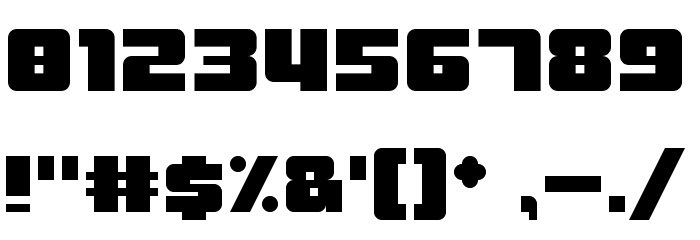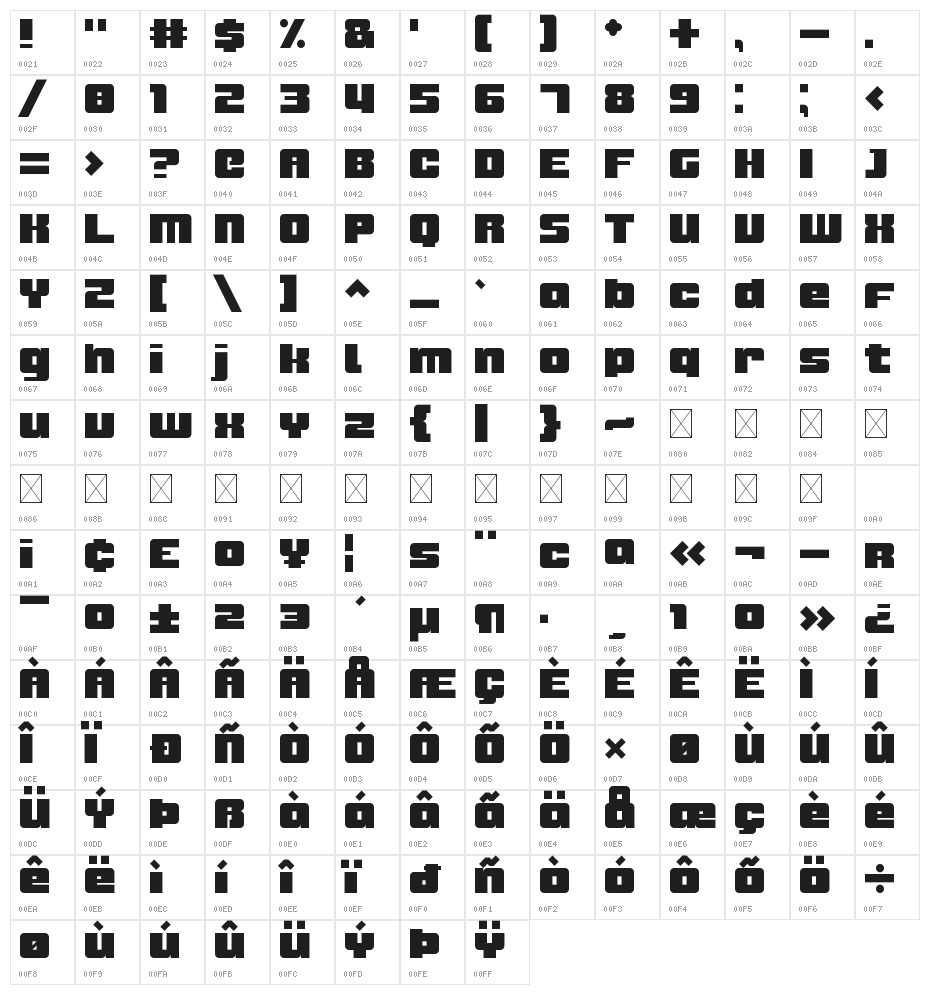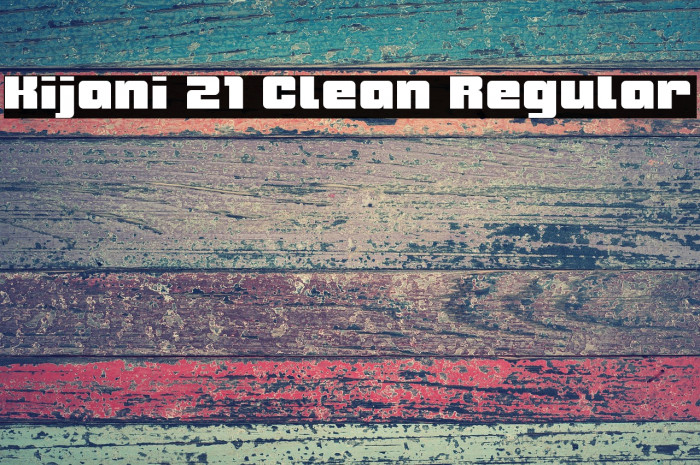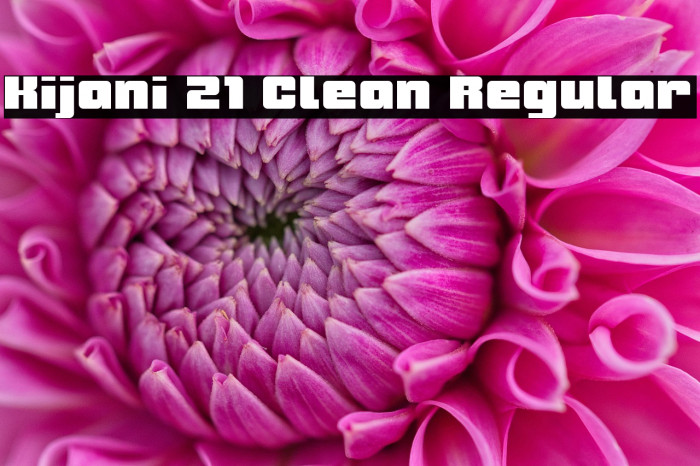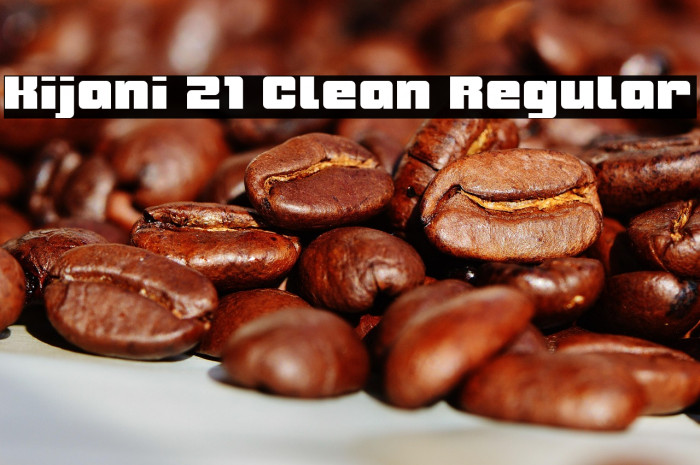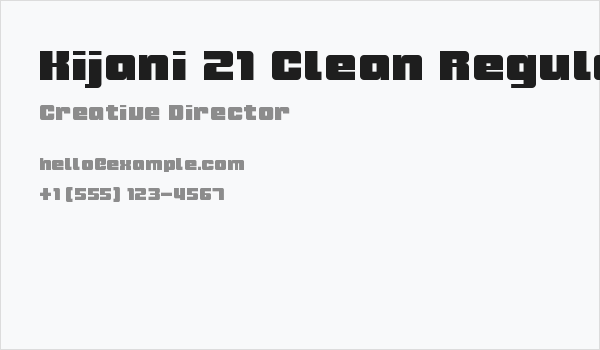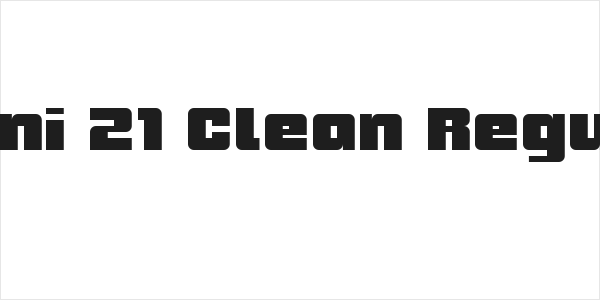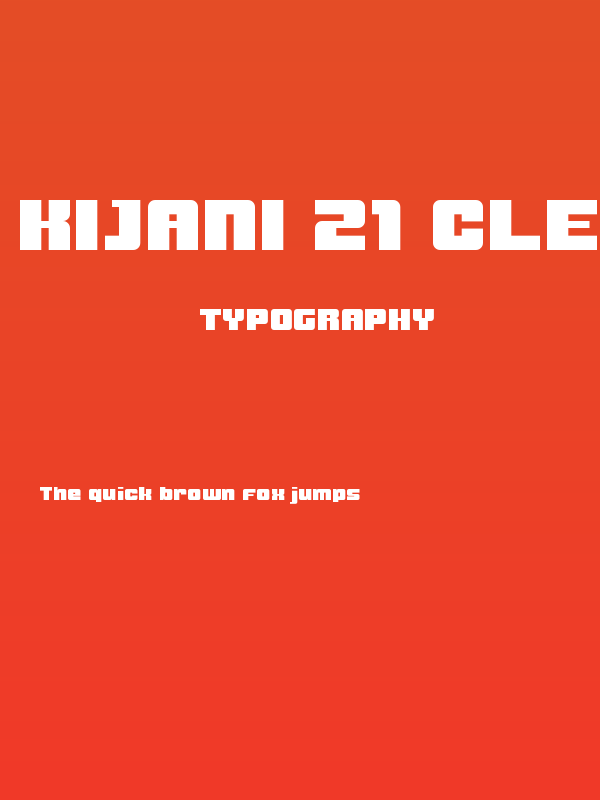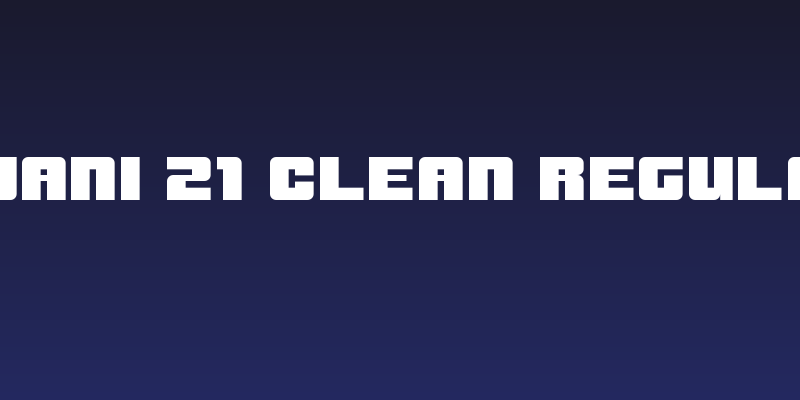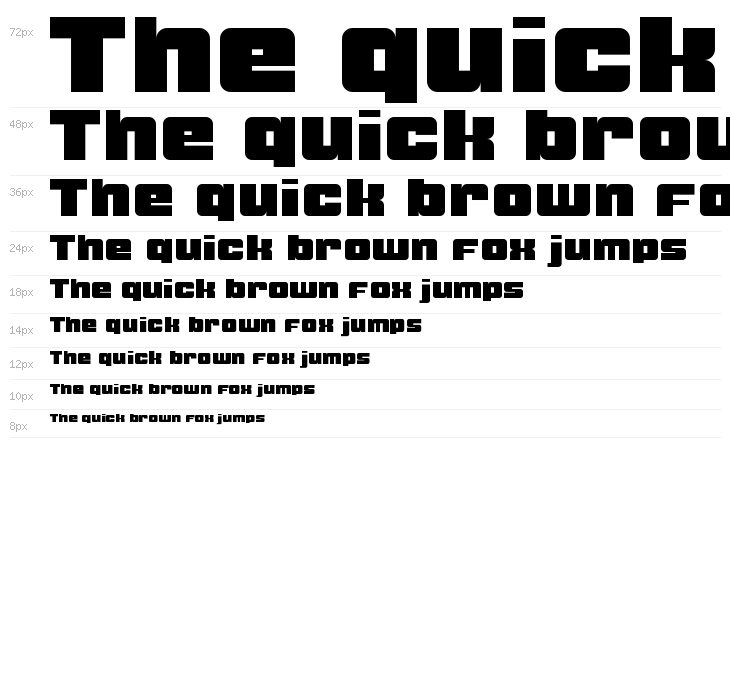
Kijani 21 Clean Regular Font
Kijani 21 Clean Regular Description
This font features a bold and geometric design, characterized by its blocky and robust letterforms. The uppercase and lowercase letters maintain a consistent width, creating a uniform appearance across the alphabet. The numerals and special characters follow the same bold style, ensuring cohesive visual impact. The design is modern and assertive, making it suitable for attention-grabbing headlines and titles. Its strong presence is enhanced by the lack of serifs, giving it a clean and contemporary look. The uniformity in stroke width across all characters contributes to its bold and impactful aesthetic.